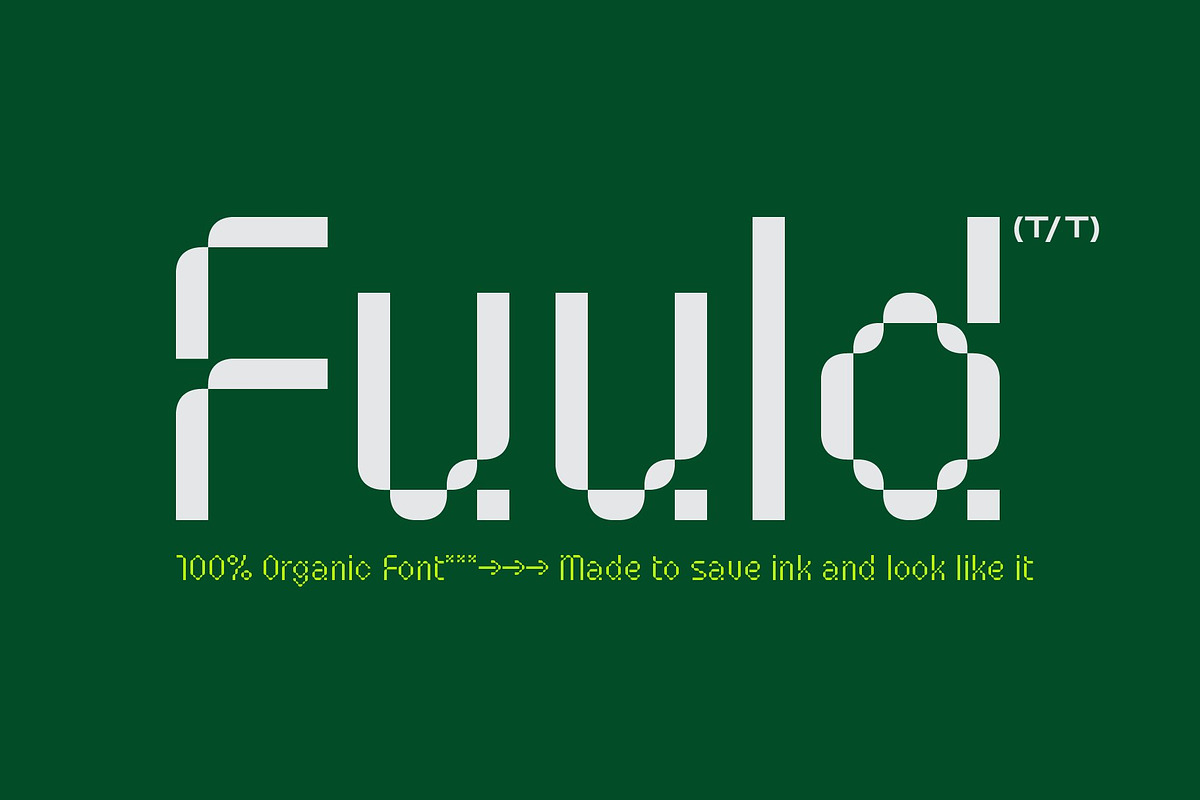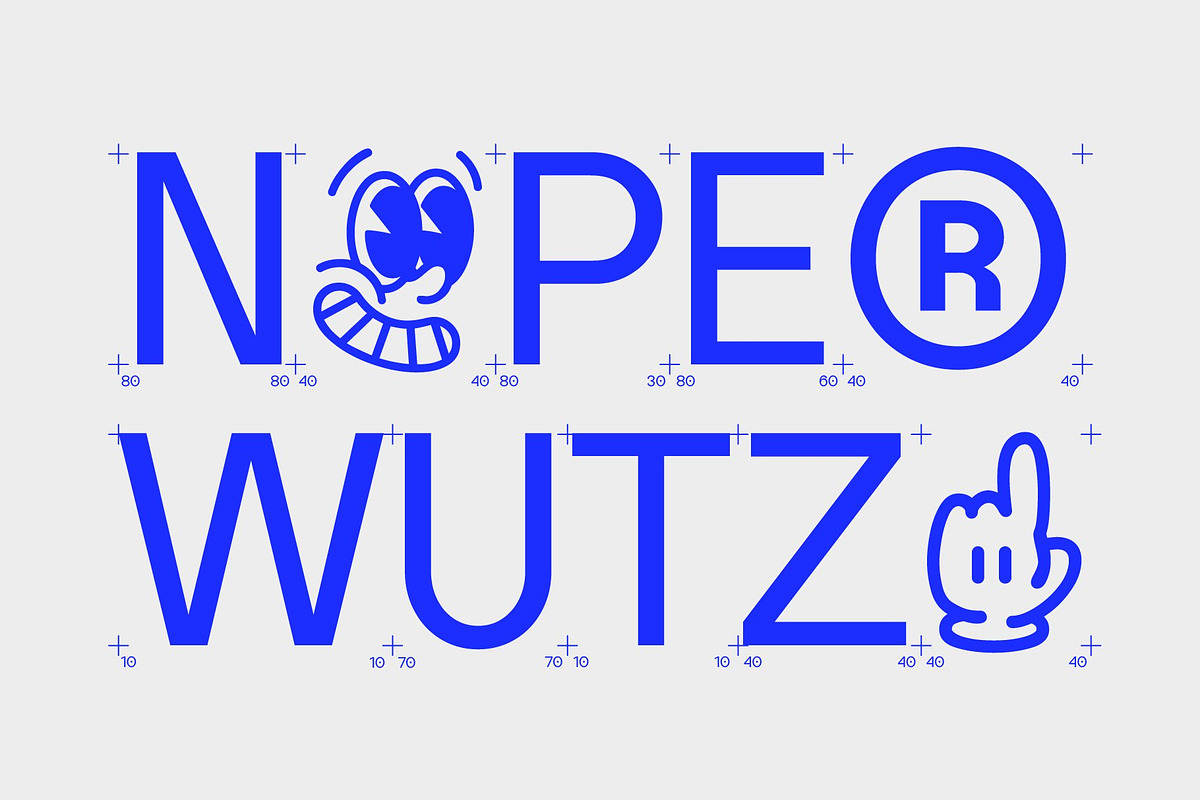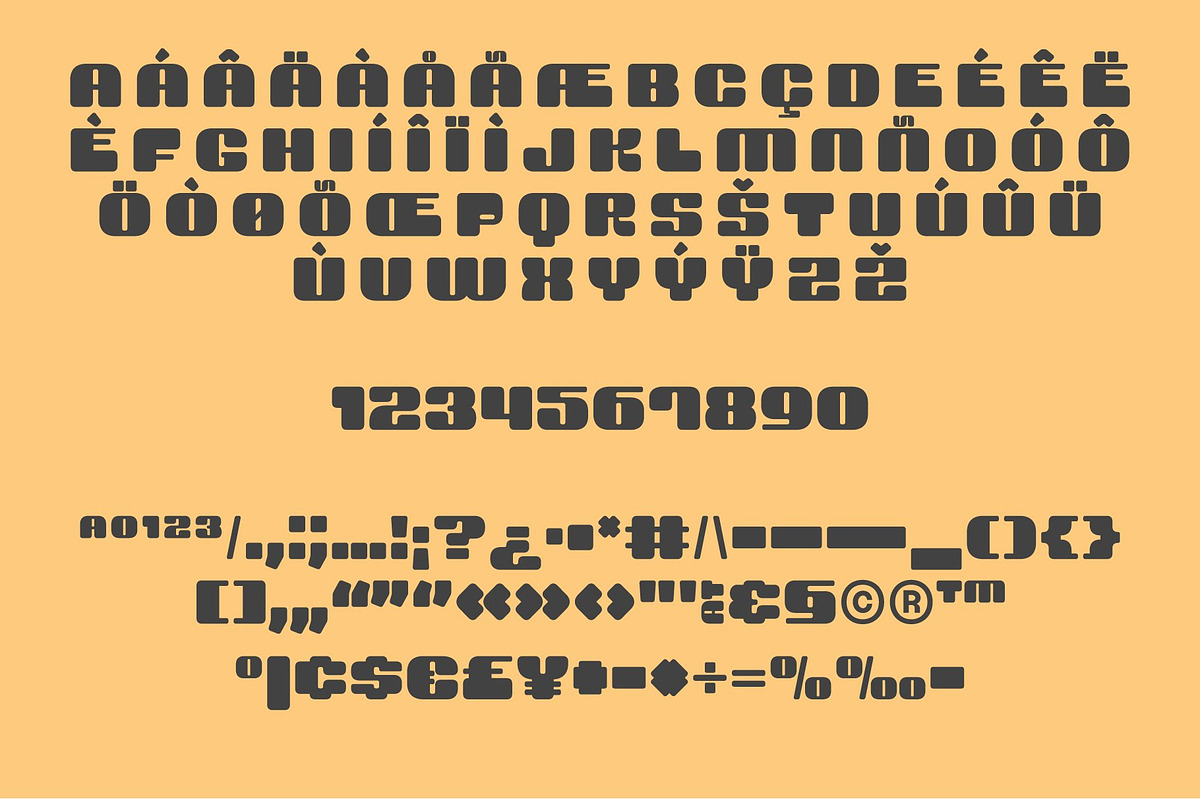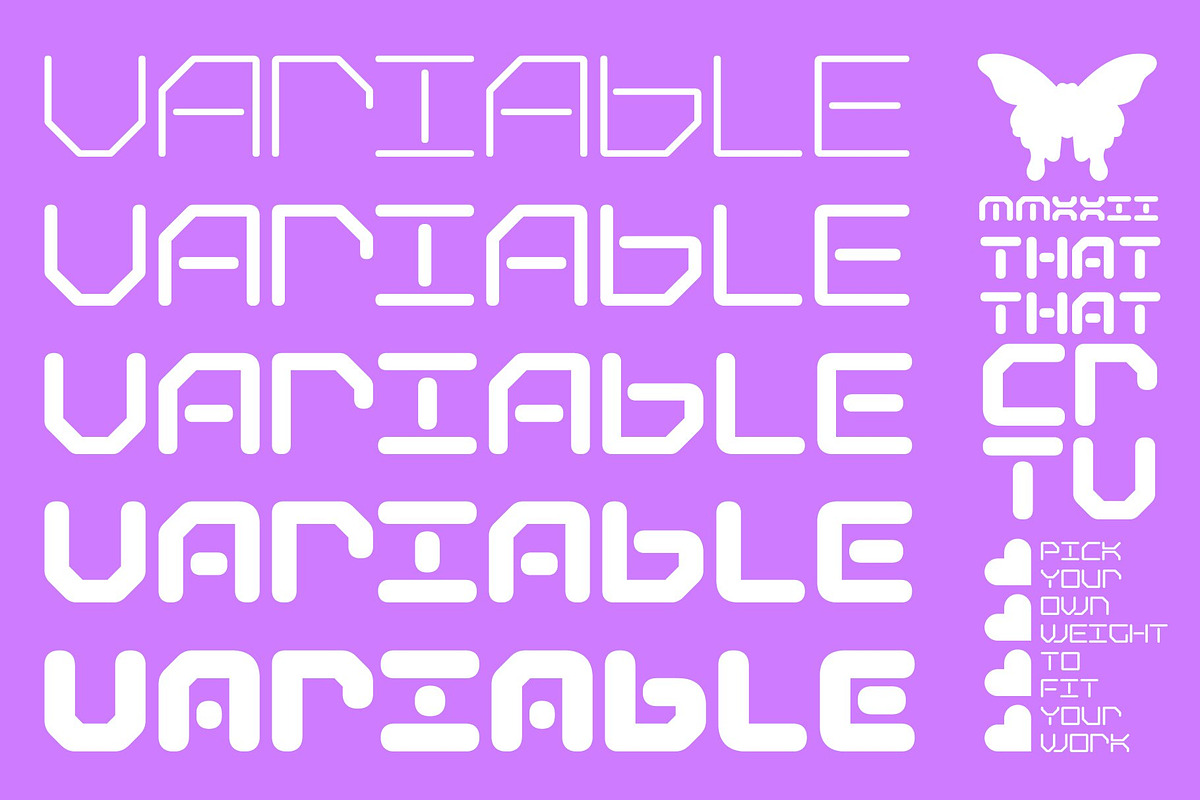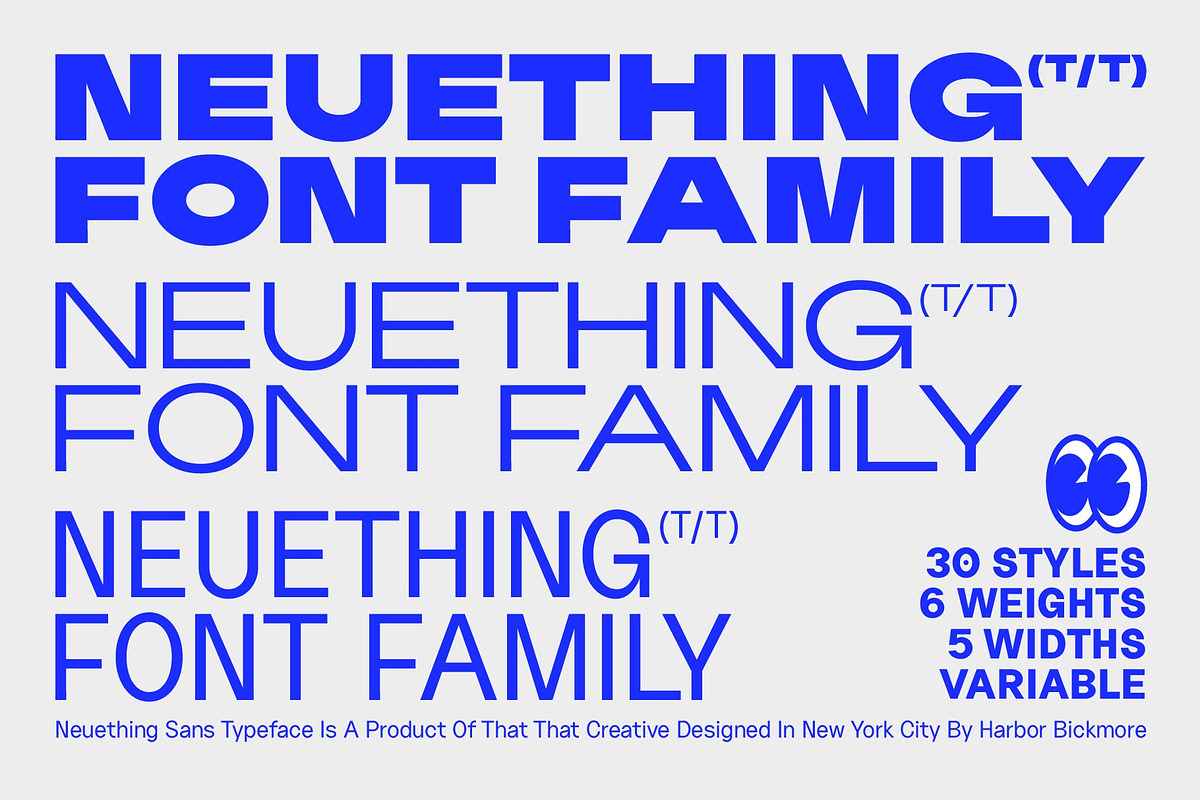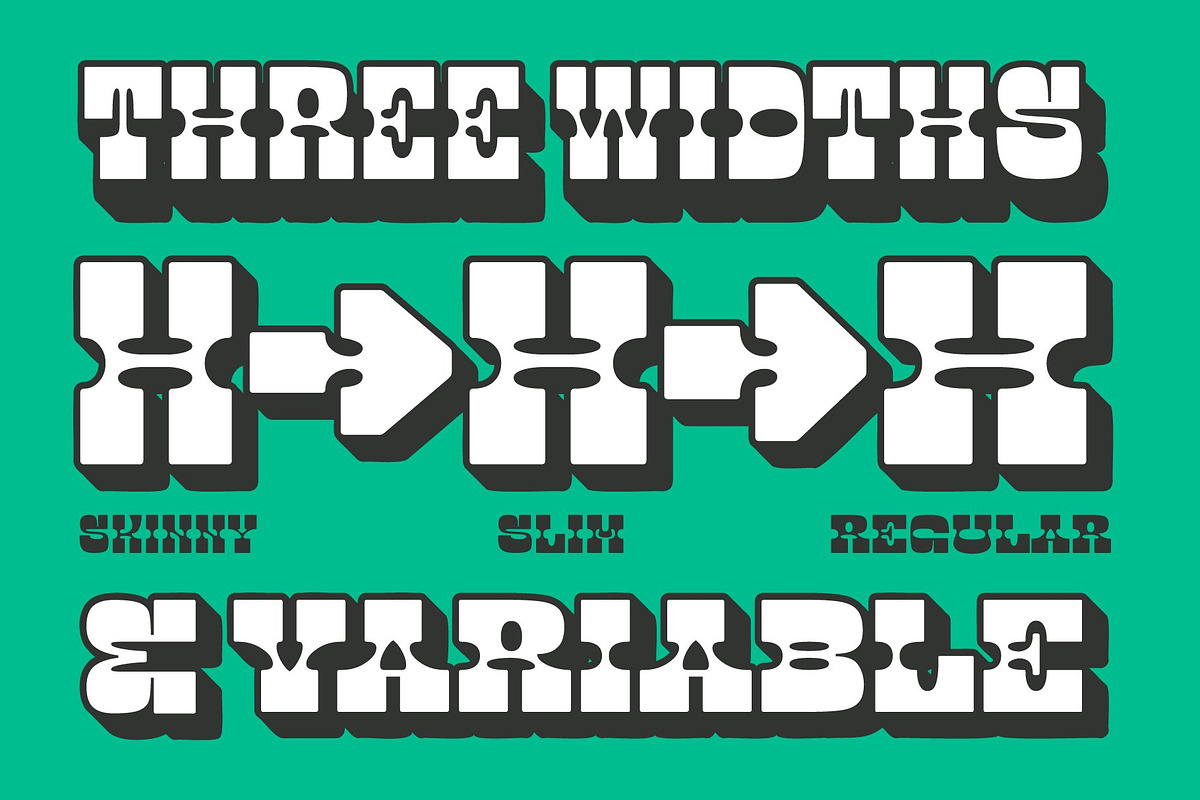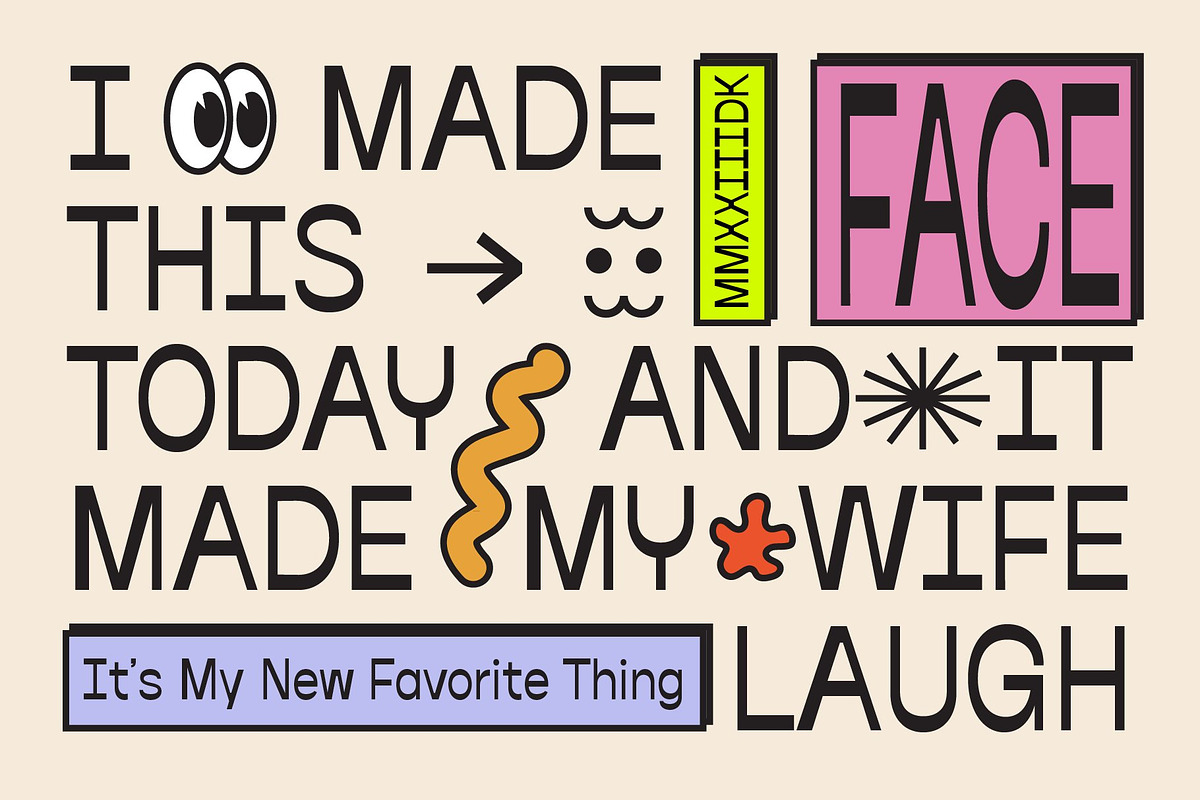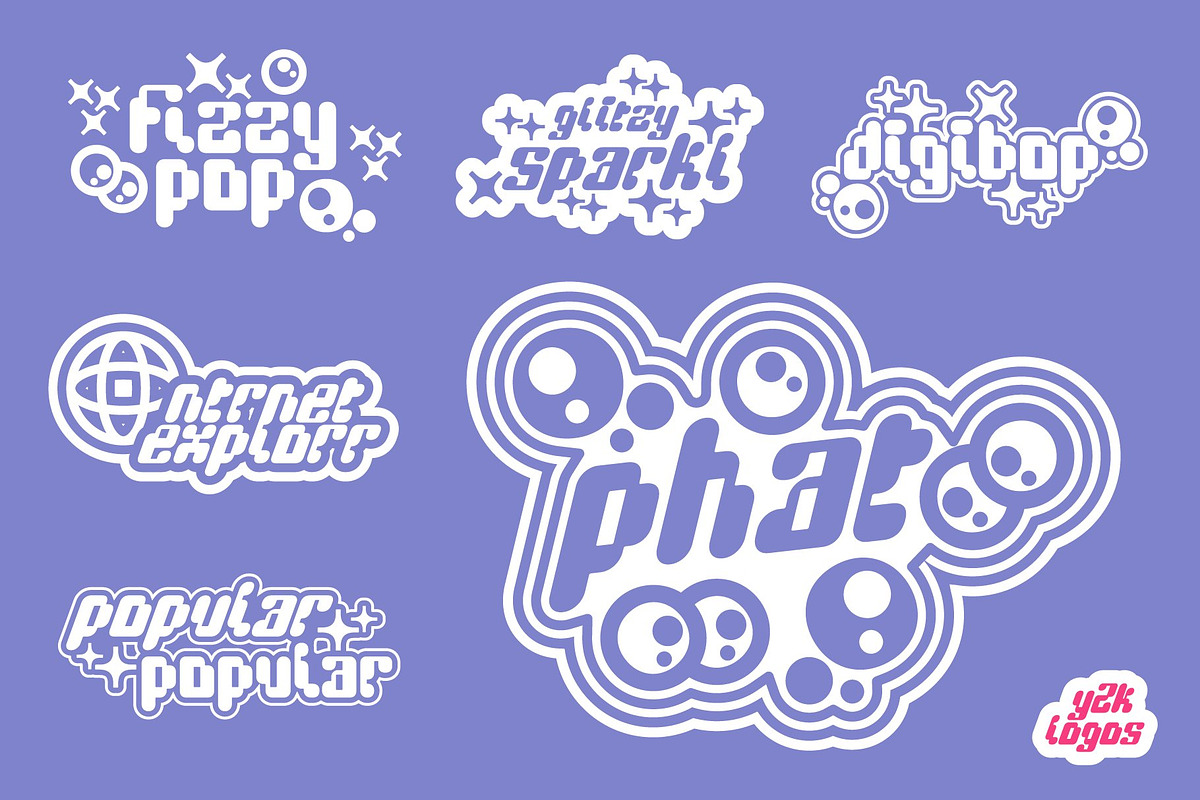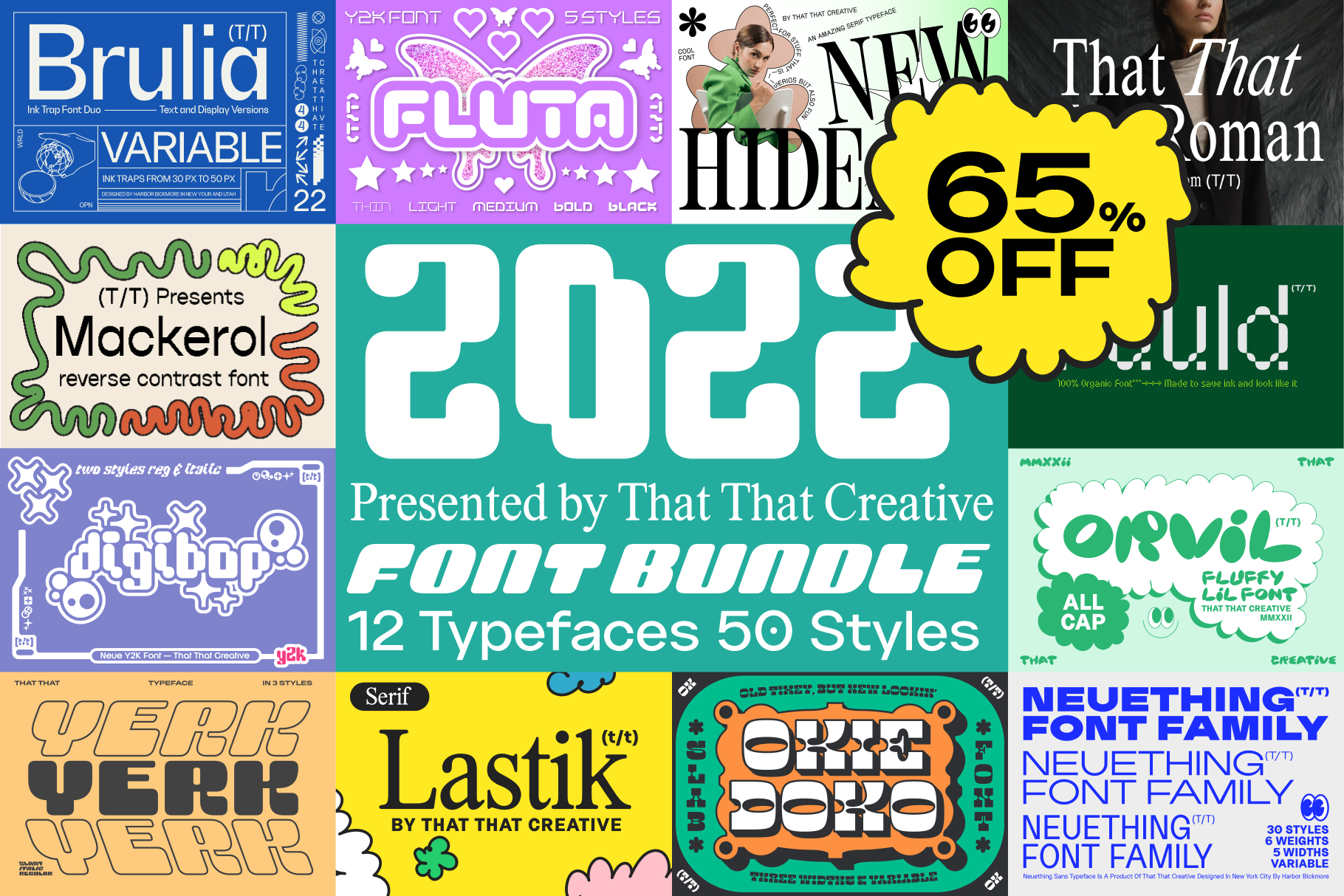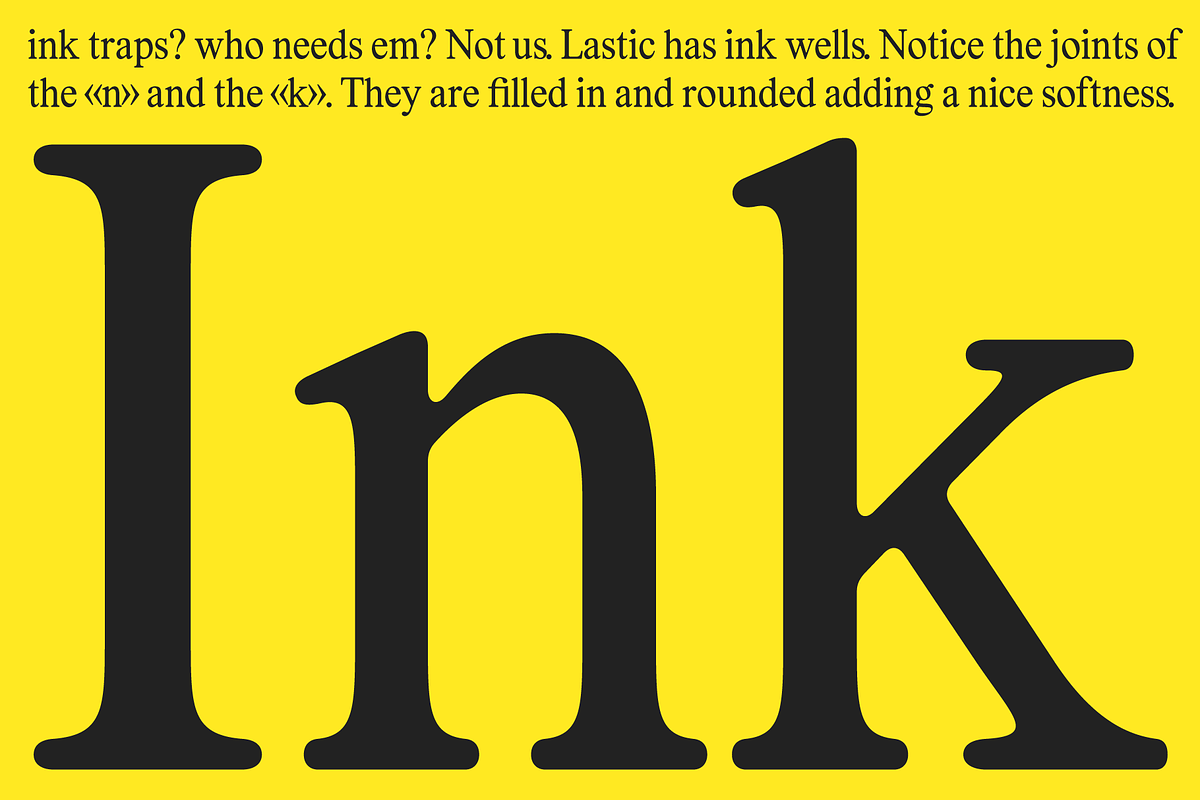
2022 Display Font Bundle
This massive Font Bundle includes all of the fonts from That That Creative that were released in 2022 and even one that you are only available on creative market as part of this bundle. There are 12 fonts many of them have multiple styles. that means this bundle incudes Over 50 font styles.
These fonts cover a wide range of aesthetics from Y2k fonts like jerk and digibop to contemporary and retro serif fonts, like Lastik and That That New Roman: an extremely versatile sans serif in Neuething the you may find yourself using in every design project from here to forever. and many other too cool to even mention by name.
Font Bundle Includes
- (BONUS) Lastik Rounded Serif